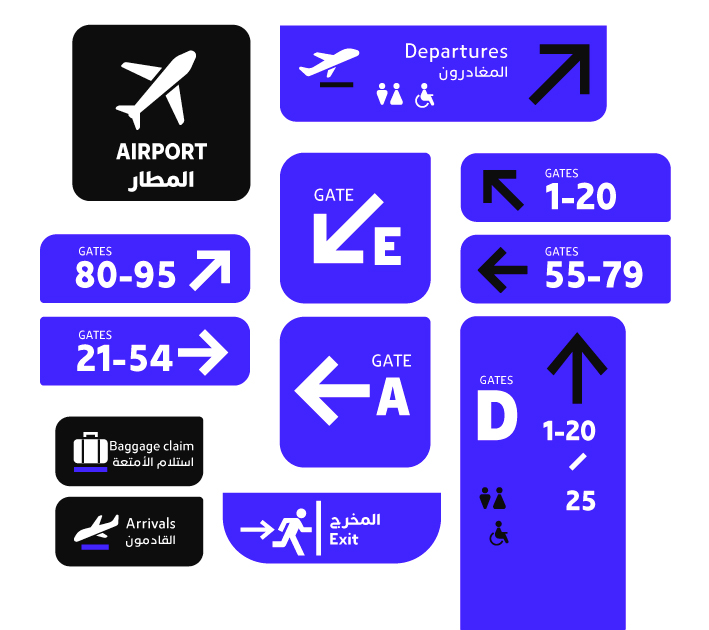
About Tarek Font
Introduction:
A modern Kufic font that contains 18 weights, Tarek is suitable for large companies, news channels, electronic newspapers, and advertising agencies.
Weights and Languages:
Tarek Font consists of 18 weights in addition to the variable font. It supports Arabic and Latin languages.
Usage:
In headlines, texts, websites, posters, visual identities, and printing.
Designing & Developing: